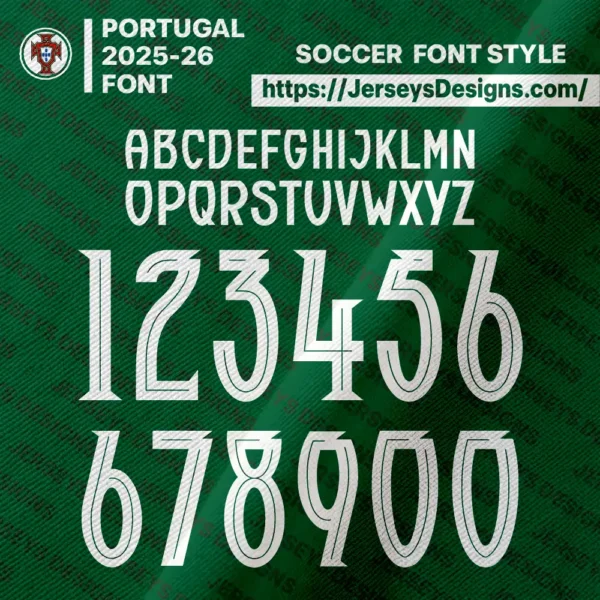
This Portugal 2025-26 FONT is a high-quality, fan-made typeface. It captures the bold and dynamic style of the recent Portuguese national team kits designed by Puma. You receive the font in both OTF and TTF formats. Vector files (SVG, AI, EPS) are also included for flexible design. This font is an ideal tool for football enthusiasts and graphic designers. It helps them create authentic-looking jersey mockups, sports posters, and various fan art. We have optimized the files for clarity and boldness. Consequently, your designs will look professional and sharp in any size. Please use this font for personal, non-commercial, and educational purposes only.
The Portugal 2025-26 FONT brings the energy of modern football right to your design software. This is a custom, unofficial typeface. We drew inspiration directly from the typography seen on Portugal’s new PUMA jerseys. The design blends sharp geometry with smooth curves. Therefore, it creates a strong, authentic football style. Designers use it for many projects. For instance, they apply it to digital graphics, print materials, and social media visuals. The font maintains excellent readability. It works well on screens and on actual printed items. As a result, your football creations gain a dynamic and professional appearance.
Design Style and Features
This font uses a modern sports style. It features strong, simple letters and numbers. It aims for a realistic jersey look without any extra clutter. Because of this simplicity, it is easy to apply and looks bold.
Complete Glyphs: The package includes full uppercase A-Z letters and 0-9 numbers.
Readability: The structure is optimized for clarity. It reads well from a distance, just like a real jersey number.
You can apply this font to many exciting football projects. For example, use it in match day graphics or thumbnails. It is also perfect for fan merchandise mockups and presentations. Students can easily use it to practice sports typography skills. In this way, you can improve your design portfolio.
Jersey Mockups: Create custom jerseys for your favorite players, like Cristiano Ronaldo.
Sports Posters: Design dynamic posters for upcoming games.
Social Media: Make engaging social media posts about the team.
Educational Projects: Use it for learning how to design sports branding.